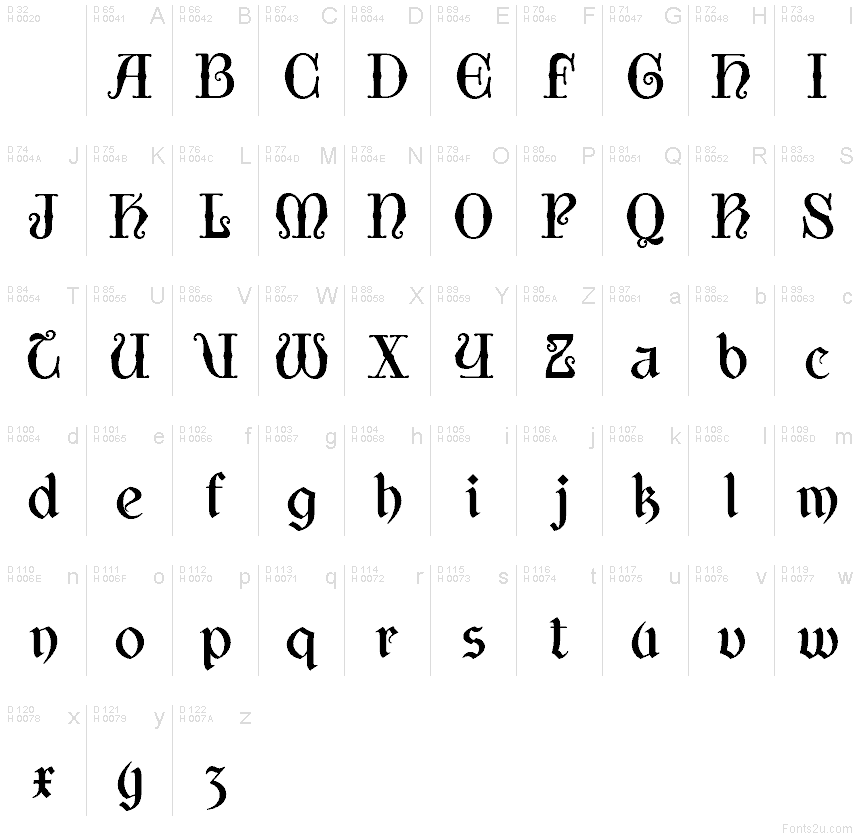
CS Rupinder font is a gothic medieval typeface by Craft Supply Co. featuring elaborate details, historic influences, and traditional feel. Its heavy-weight letters are crafted with thick strokes and enclosed counters that connect in unique and creative ways while leaving minimal white space. The design also has a slightly condensed width ideal for fitting text perfectly into the design.
Use this free gothic font for book covers, typography posters, magazine designs, photo overlays, comic strips or books, product packaging and labeling among other projects. Most appropriate industry uses include fashion brands and publications promoting clothing or jewelry lines and accessories items.